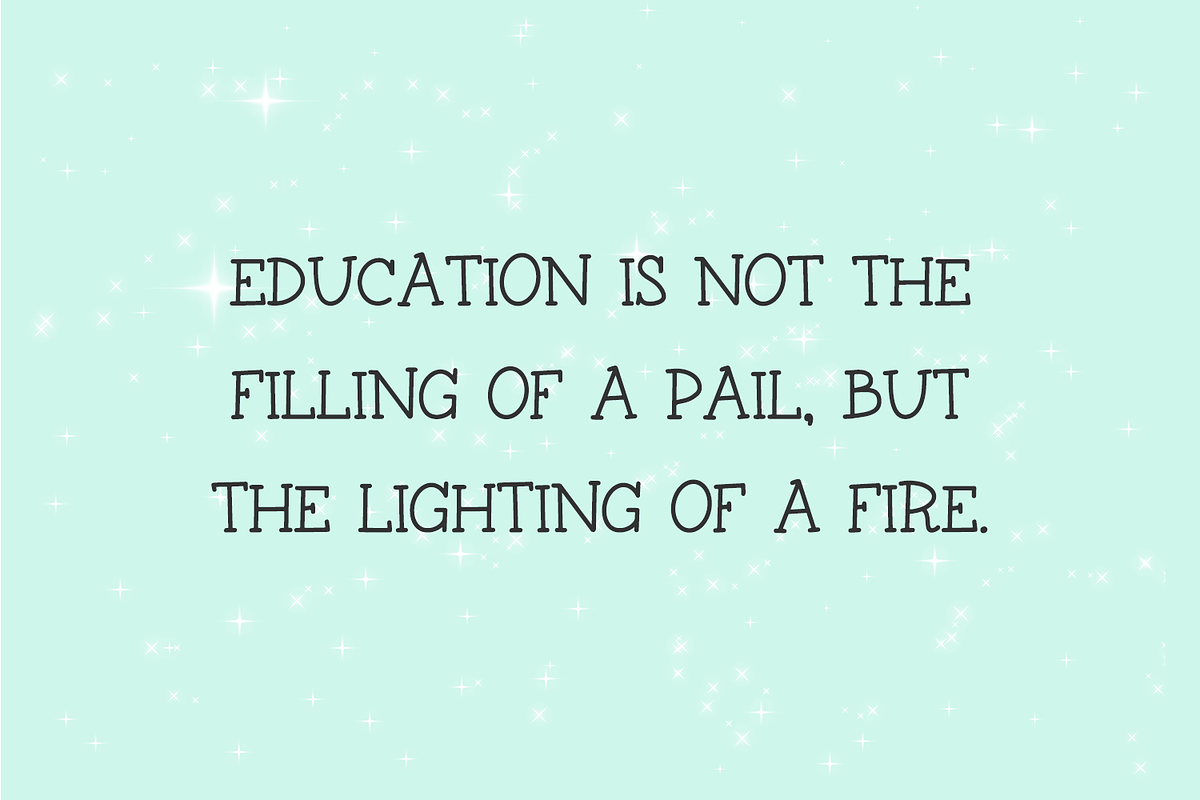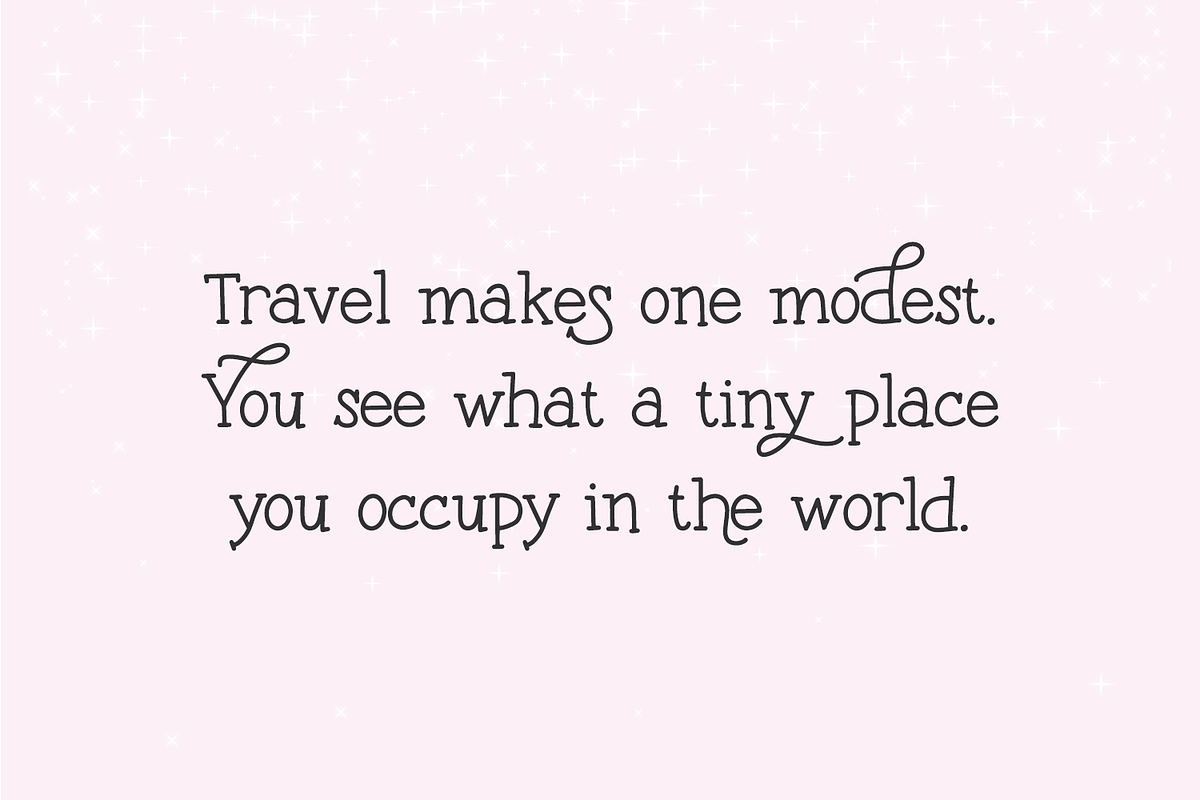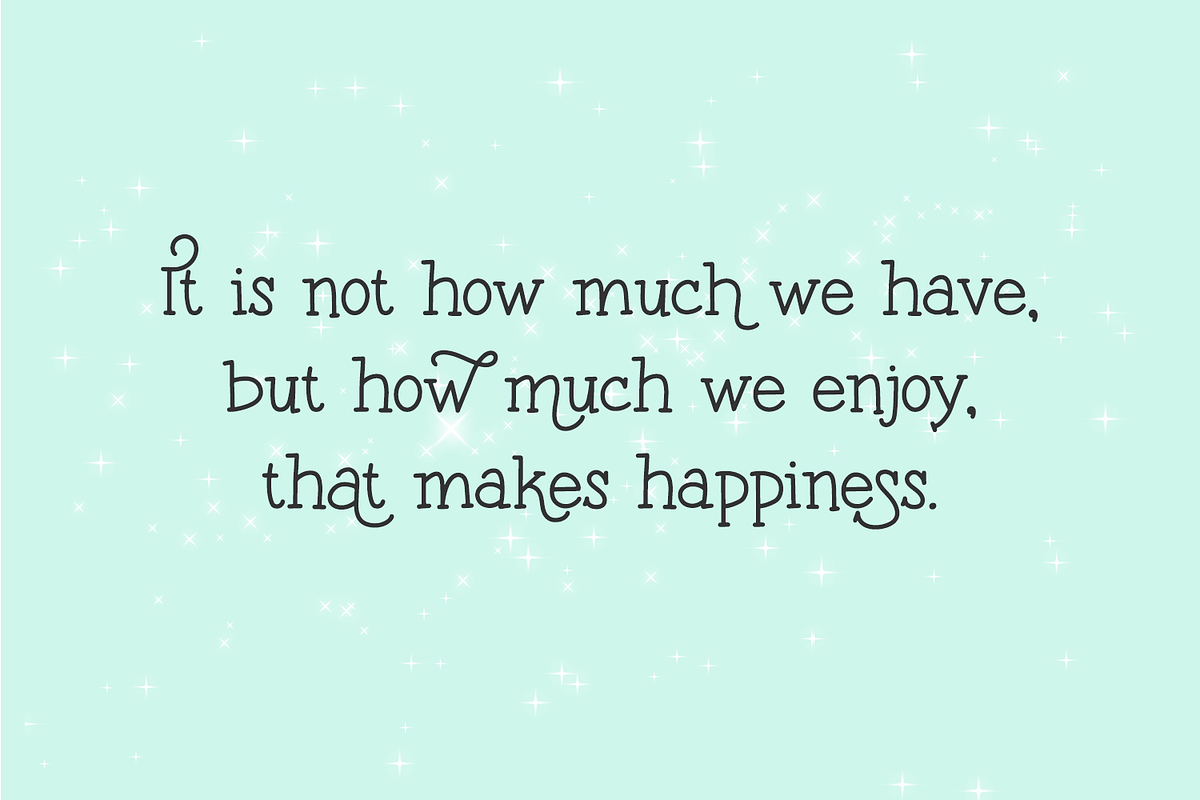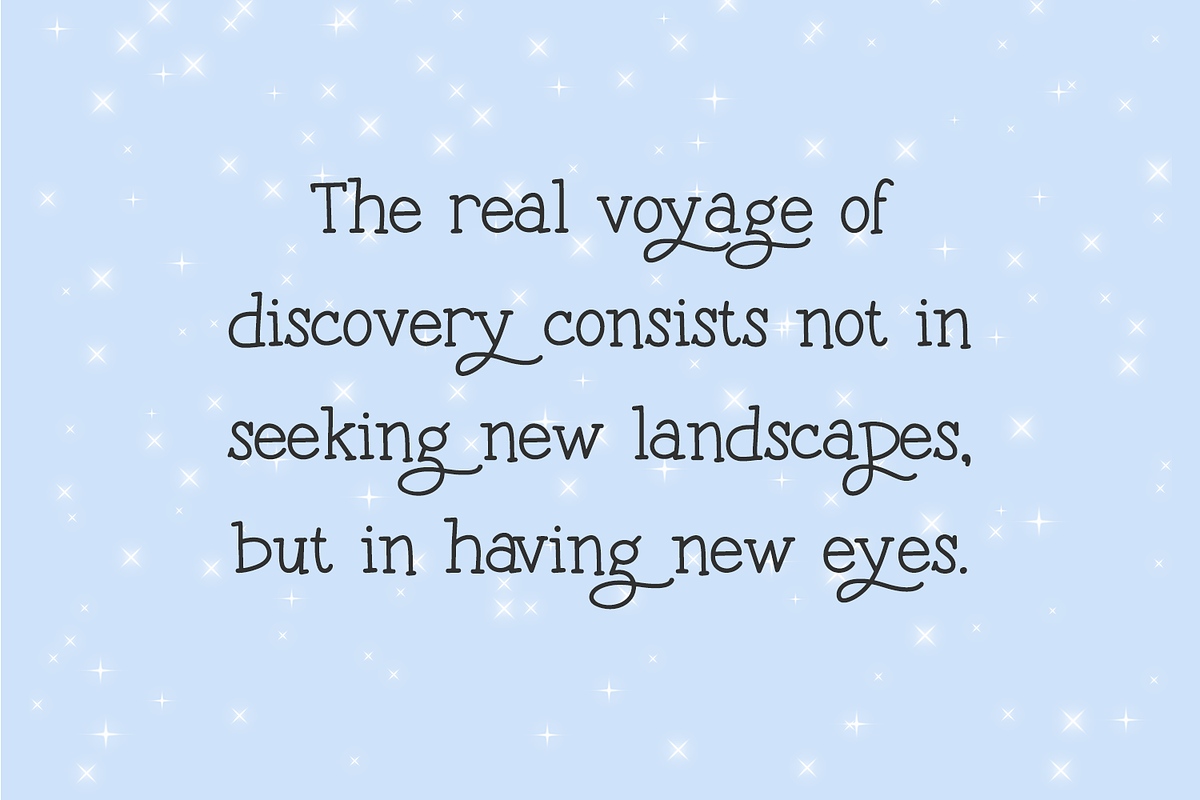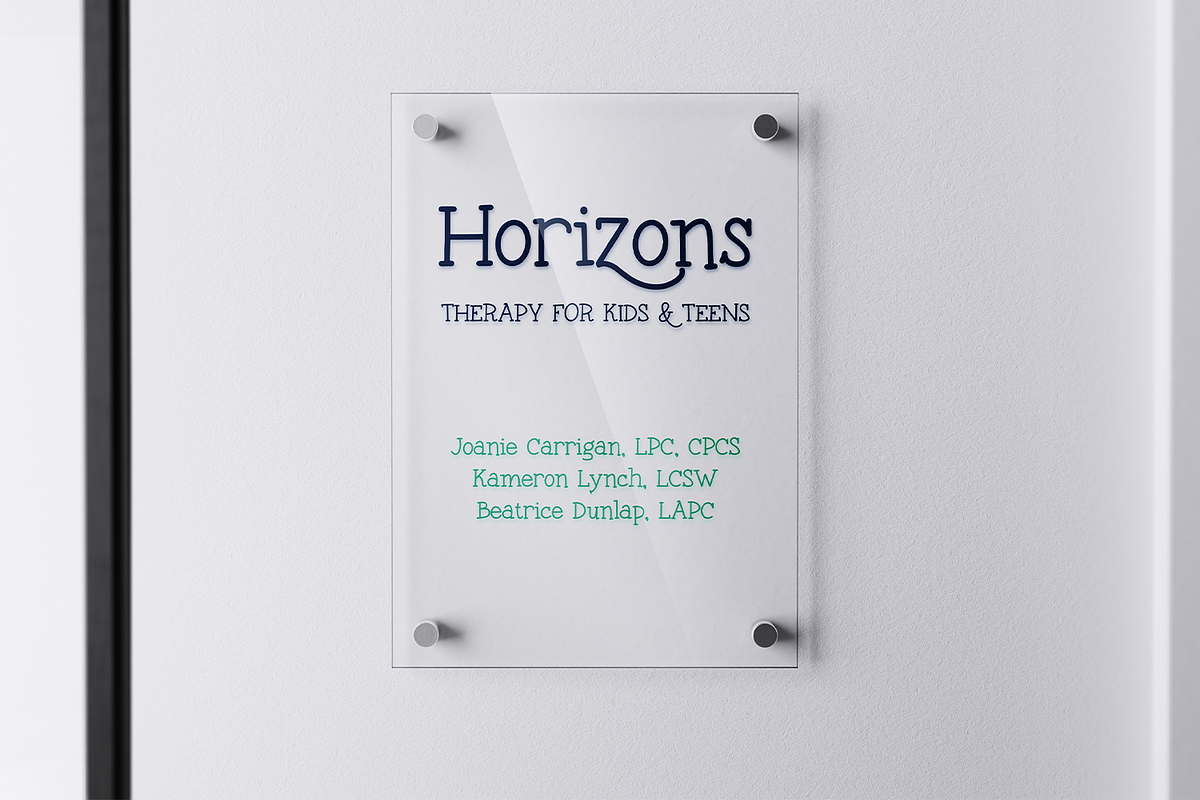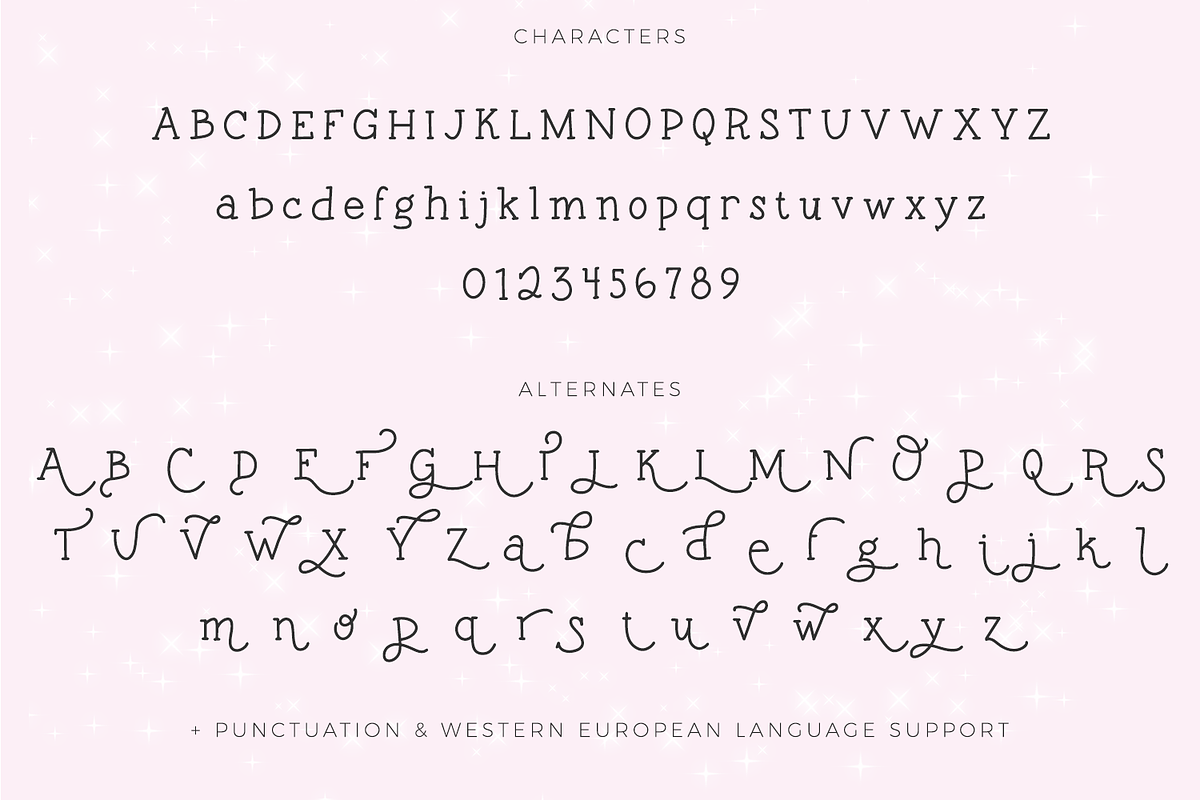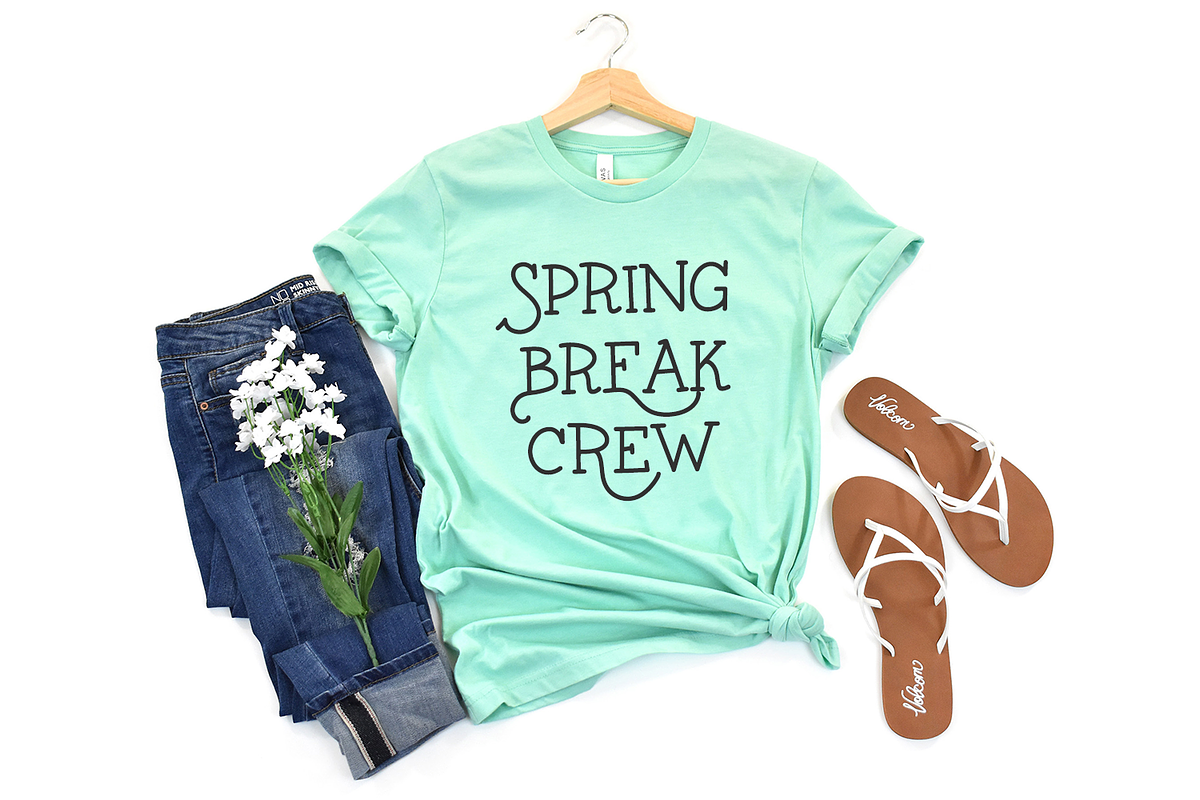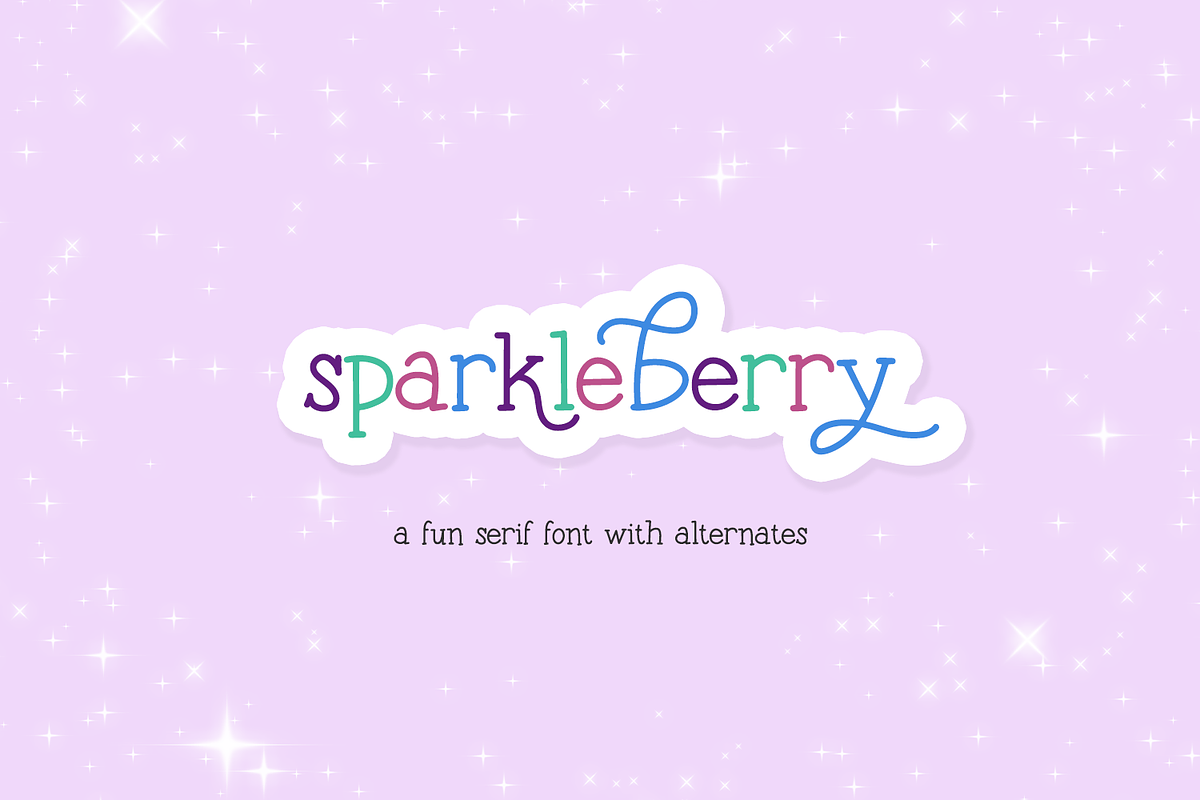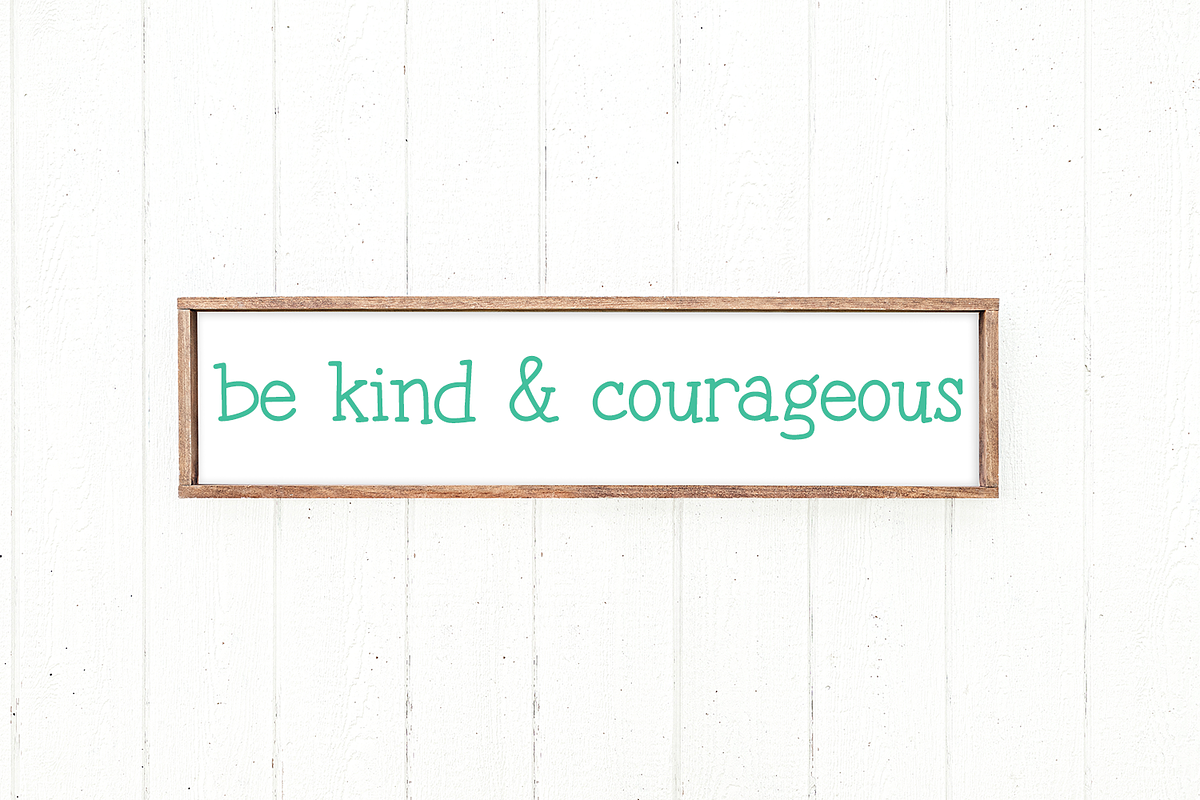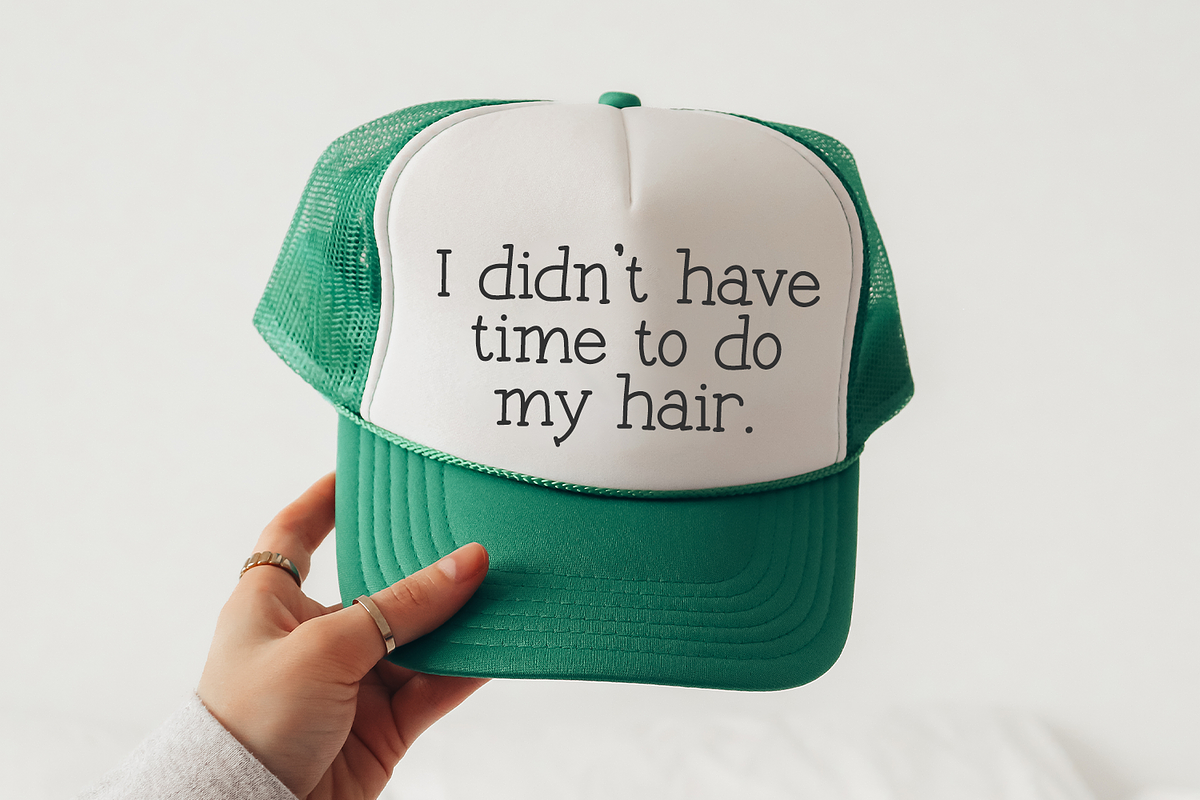
Sparkleberry Typewriter Serif
Sparkleberry Serif is a hand lettered serif font with fun alternates. Sparkleberry Serif is perfect for logos & branding, greeting cards, painted banners, digital planners, note-taking apps, Canva, Cricut projects, Silhouette projects, designing SVG files, laser cutting projects, & more.
Sparkleberry Serif includes:
- full upper + lowercase characters
- numbers + punctuation
- 52 alternates, A-Z & a-z
- Western European language support - English, French, Spanish, Portuguese (Brazil), Portuguese (Portugal), Italian, German (Germany), German (Austria), Dutch, Danish, Swedish, Norwegian (Bokmål and Nynorsk), Finnish, Icelandic, Irish, Welsh